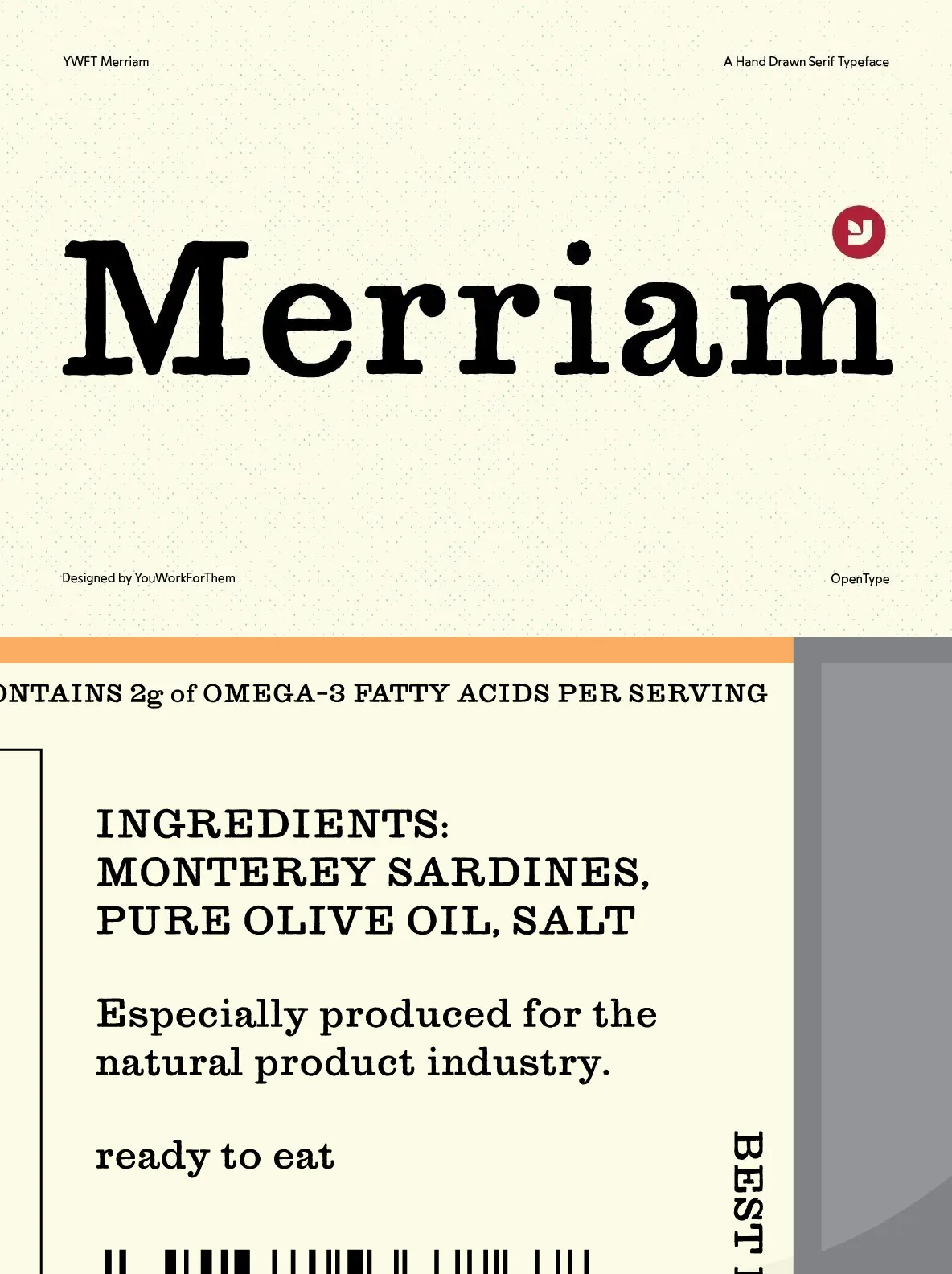
YWFT Merriam Font
YWFT Merriam — Rainy-Day Serif Character
YWFT Merriam, an English slab-serif typeface that nods to Clarendon while holding its own distinct voice. The design pairs a smaller x-height with a hand-drawn, distressed texture. The result reads with a vintage ambience, recalling antique prints and weather-beaten signage. It suits projects that call for a classic typographic tone with a little grit.
YWFT Merriam also offers breadth for serious typesetting. With over 200 glyphs, it supports consistent text work while keeping a strong visual presence. Stylistic variations add flexibility across different design applications, from headlines to supporting text. It also supports most Western languages, helping your work communicate clearly and with stylistic sophistication across a wide range of audiences.